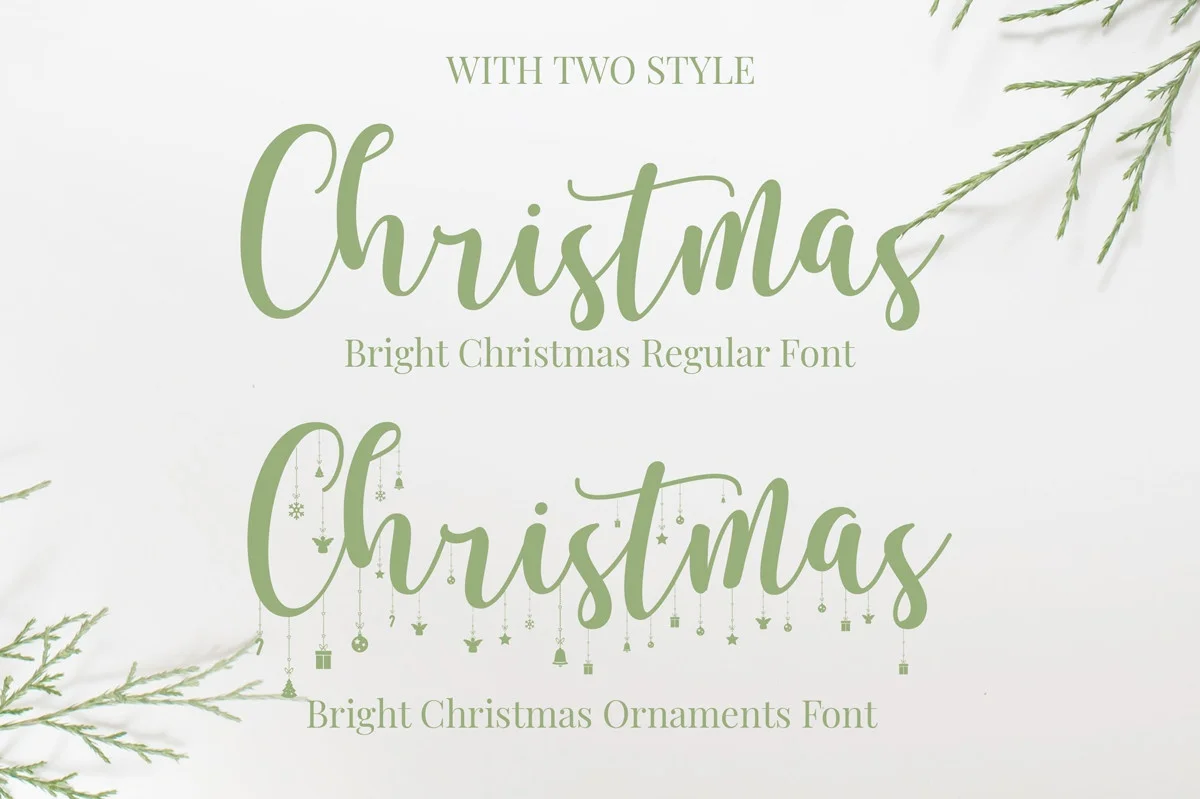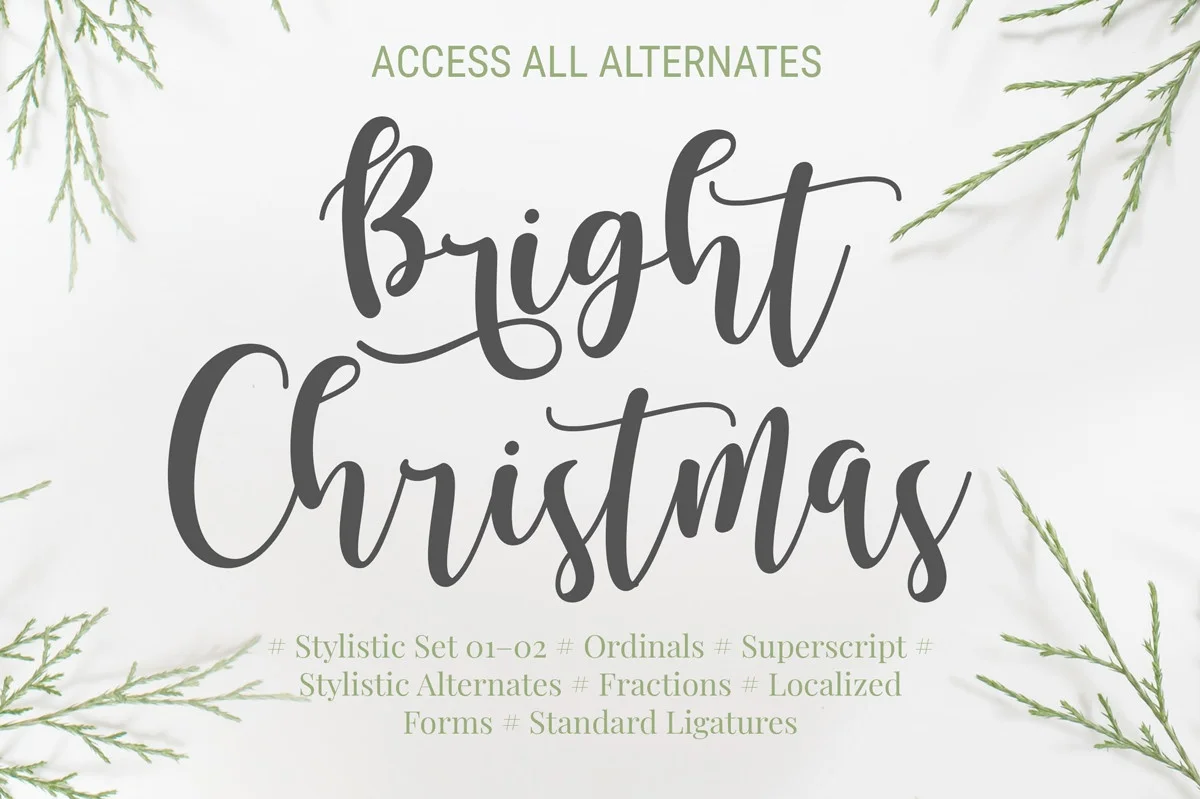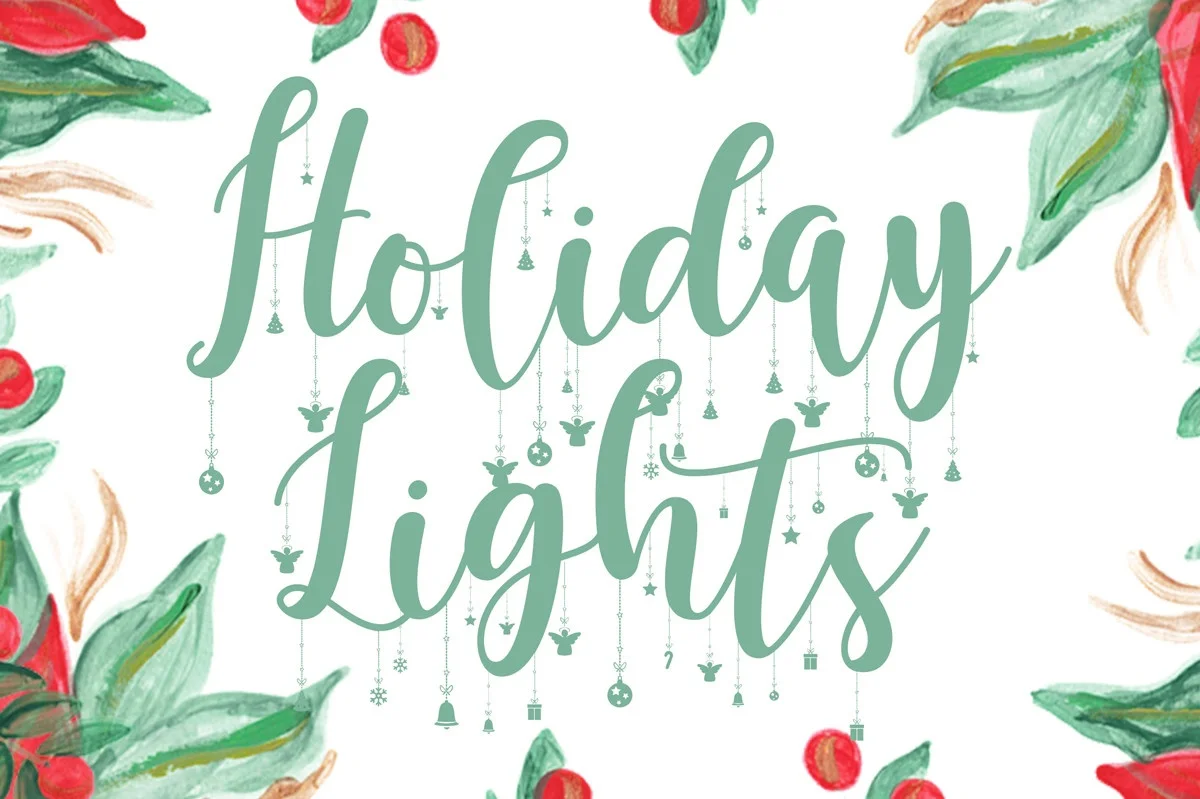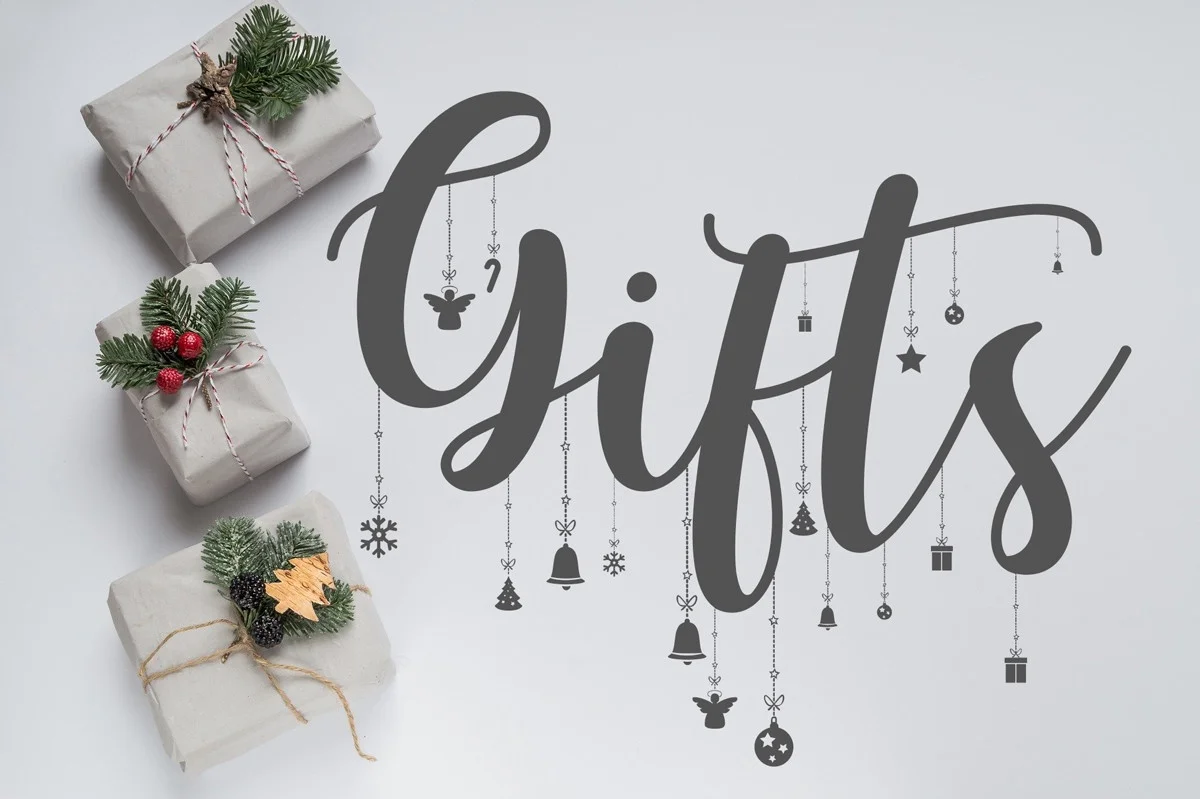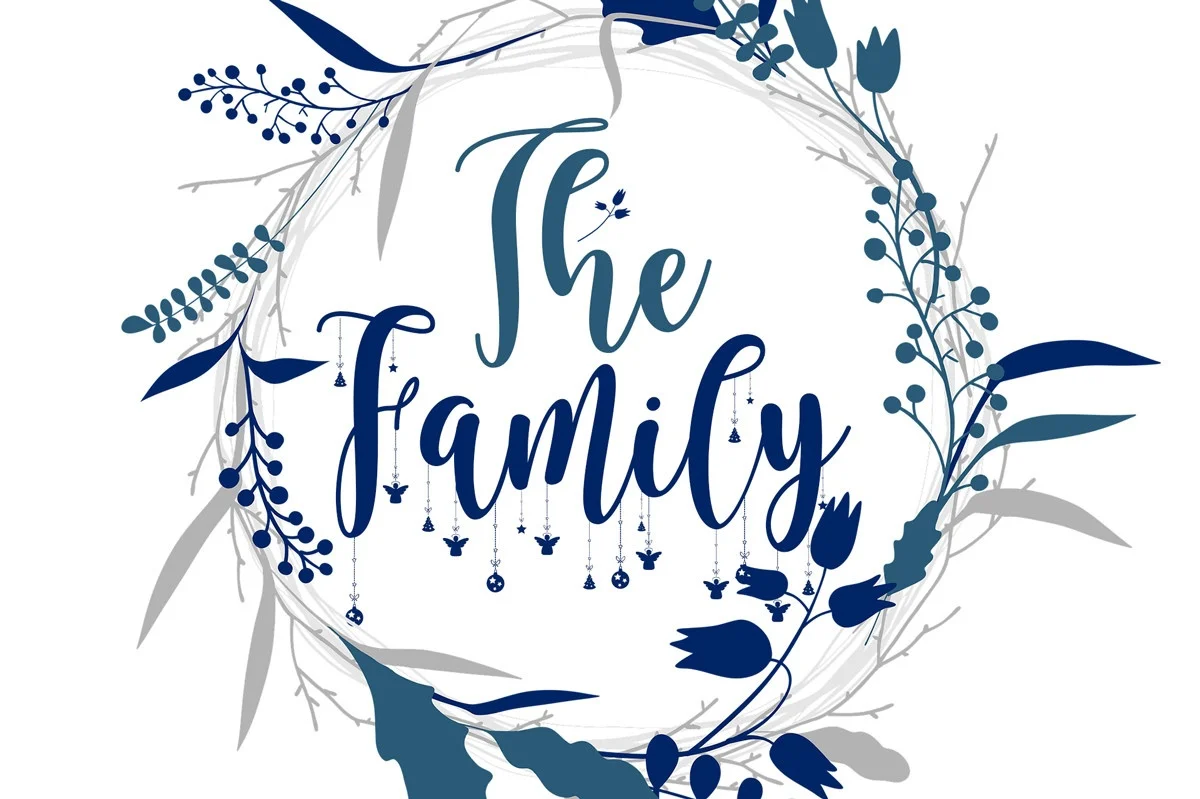
Bright Christmas Font
This luminous font is perfect for illuminated Christmas displays, bright holiday lighting advertisements, radiant Christmas decorations, cheerful seasonal campaigns, vibrant Christmas parties, glowing holiday signage, brilliant Christmas marketing, luminous seasonal branding, shining Christmas events, and dazzling holiday messaging materials.
Bright Christmas Font is exciting because it captures the radiant joy and illuminating spirit of Christmas through its brilliantly designed letterforms that seem to glow with the same warm light as twinkling Christmas tree lights and glowing holiday displays. The font features luminous characters with bright, cheerful curves and radiant details that reflect the way Christmas brightens the darkest days of winter, incorporating light-inspired accents and brilliant flourishes that create the visual impression of letters formed from pure Christmas light. Each character showcases the uplifting energy and optimistic brightness that defines the Christmas spirit, with gleaming proportions and radiant touches that make text appear to shine with inner joy and festive illumination. The design perfectly embodies the light-bringing aspect of Christmas, creating typography that feels as bright and hopeful as the first Christmas lights appearing in neighborhood windows as the holiday season begins.
The Bright Christmas Font family includes illuminated style variations: Regular, Bold, Light, Radiant, and Glowing versions. The collection features special bright elements including light ray accents, star shine details, brilliant flourishes, and luminous ornamental touches. Additional components include glowing borders, radiant frames, bright decorations, and illuminated ornamental designs that enhance the font's bright Christmas appeal and create cohesive luminous holiday themes.
Lighting designers and joyful celebrants will find Bright Christmas Font to be an exceptional choice for creating uplifting holiday communications that capture the light-bringing and joy-spreading nature of Christmas celebrations. This brilliantly crafted font transforms ordinary Christmas messaging into radiant expressions that illuminate hearts and minds with the same brightness and warmth that Christmas brings to the world during winter's darkest season.
The typeface includes comprehensive character support with luminous styling that maintains excellent readability while conveying the brilliant radiance and uplifting brightness of Christmas illumination. The font's glowing design ensures spectacular results across both digital light displays and traditional bright holiday applications.
Perfect for lighting companies, joyful Christmas events, bright holiday celebrations, and illuminating seasonal marketing, this font delivers radiant visual impact that communicates joy, hope, and the brilliant light of Christmas that brightens hearts, homes, and communities with the luminous spirit of the season.